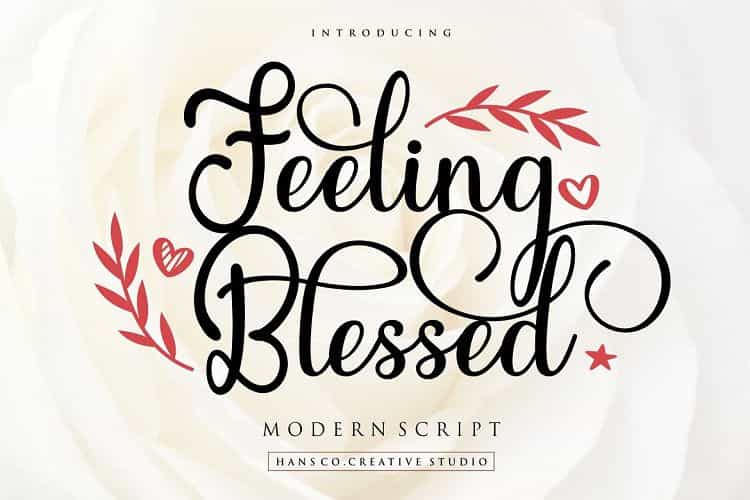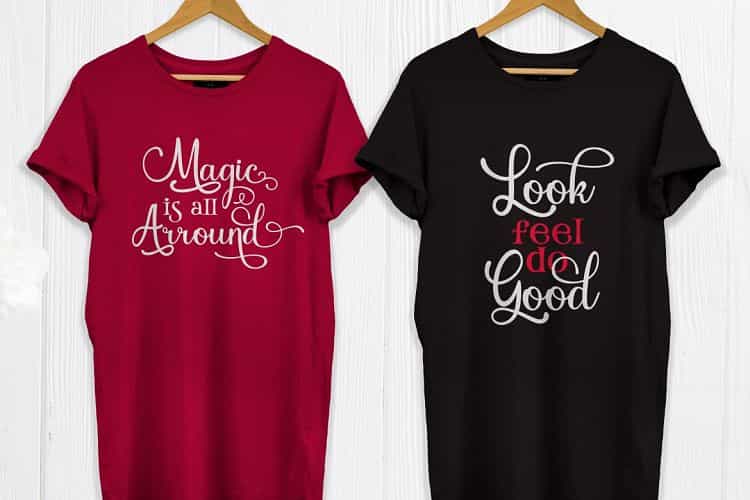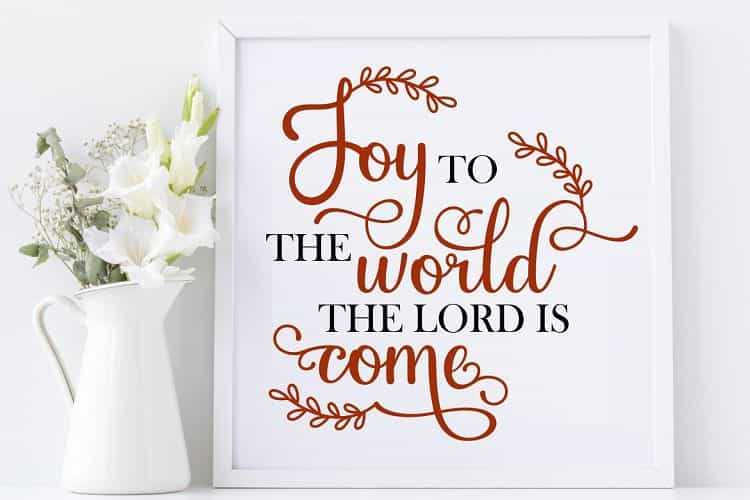
Feeling Blessed is a nice, contemporary and new calligraphy font with lots of alternative styles. Besides, add some doodle art ( in Roman numerals alternate ). Highly recommended to use in software design such as Adobe photoshop / illustrator, coreldraw and many others. This font goes well with many projects like invitations, product packaging, product design and so on.